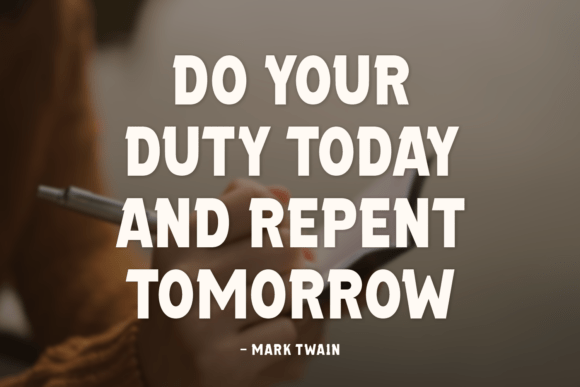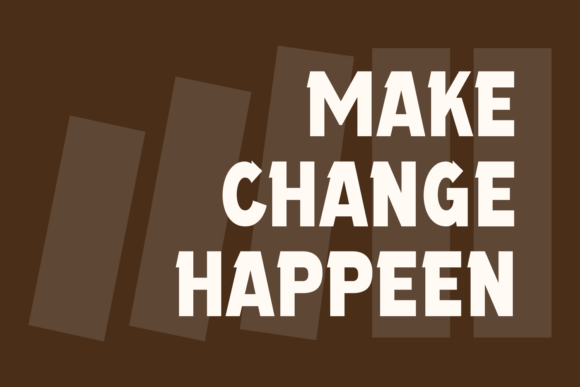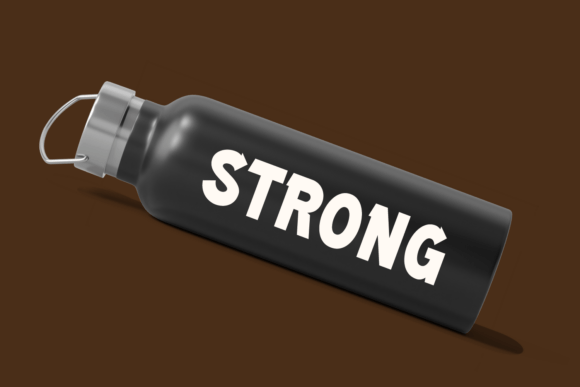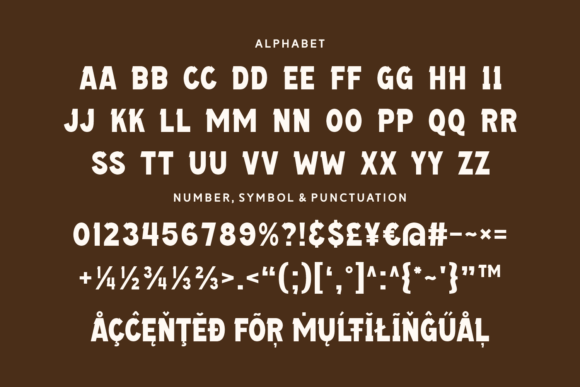
Have you ever stared at a blank page, struggling to find the right words to express your creativity? You’re not alone. Sometimes, all it takes is the right font to spark that elusive idea and bring your vision to life. That’s where Brave Citizen Font comes in – a bold, whimsical, and fancy typeface designed to make a statement and stand out from the crowd.
As a designer, you know how crucial it is to find the perfect font to match your brand’s personality and style. Brave Citizen Font is more than just a typeface – it’s a versatile tool that adds a touch of sophistication to your branding, from logos to labels, and even apparel designs. Its smooth, unique, and clean design makes it perfect for media and print projects, and its vintage flair is sure to make your work truly memorable.
Brave Citizen Font Key Features
- Font Family: Brave Citizen Font is a unique, sans-serif font designed to evoke a sense of courage and determination.
- Size: The font family includes multiple weights, ranging from 100 to 900, allowing for a wide range of typographic expressions.
- Resolution: Optimized for high-resolution displays, Brave Citizen Font is suitable for use in digital applications, such as websites, mobile apps, and digital signage.
- Unique Characteristics: The font features a distinctive, hand-drawn feel, with subtle irregularities and nuances that give it a human touch.
Designer Review: Brave Citizen Font
I recently had the chance to work with the Brave Citizen Font, and I must say it’s a unique and refreshing addition to any design project. ✨ Here are some things that really stood out to me:
- Legibility: Brave Citizen Font excels in legibility, making it perfect for body text where clarity is key.
- X-height consistency: The font’s x-height is well-balanced, ensuring that text remains easy to read even at smaller sizes.
- Stylish flair: Brave Citizen Font brings a touch of sophistication and elegance to any design, making it perfect for high-end branding and publishing projects.
However, like any font, Brave Citizen has its limitations. ⚠️ Some potential drawbacks include:
- Limited character set: Brave Citizen Font has a relatively small character set, which may limit its use in languages that require a wide range of characters.
- Not ideal for headlines: While Brave Citizen is great for body text, it may not be the best choice for headlines or titles, where a bolder font is often preferred.
Overall, I’d say Brave Citizen Font is a solid choice for designers looking to add some sophistication and elegance to their projects. While it may not be the best fit for every design need, it’s definitely worth considering for the right project.
Tips for Getting the Most Out of the Brave Citizen Font
Here are some tips to help you get the most out of the Brave Citizen Font:
- Use the font in combination with other bold, modern fonts for a striking visual effect.
- Use the font in headings and titles to create a cohesive visual brand.
The Brave Citizen Font is ideal for:
- Modern branding and marketing materials.
- News
What font sizes and styles are available in Brave Citizen Font?
The Brave Citizen Font family includes 6 weights (Light, Regular, Medium, Bold, Extra Bold, and Black) and 3 font styles (Regular, Italic, and Bold Italic). This allows for a wide range of typographic expressions and applications.